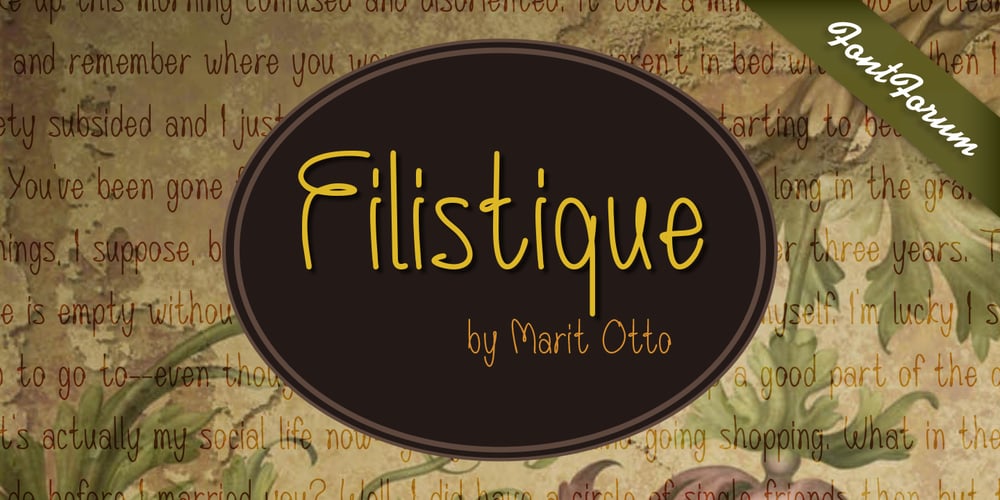
Filistique
Filistique font
Filistique Font Family was designed by Marit Angenita Otto and published by URW Type Foundry. Filistique contains 1 styles and family package options. Filistique is gracious, flexible, and stylish. In the first sketches of this typeface, the one-line drawing principle was the rule. This principal had to perish soon when more complex characters came up. But still the one-line rule was kept in tradition to maintain the behavior of the natural course of the drawing line. Once writing, the characters joined fluidly into words and slipped easily into sentences like they had always belonged there. They have these natural features maybe somewhat familiar on the first sight. Filistique approaches handwriting but likes to be straight up as well. Please, no Christmas card writing with this character! She is best in shape for finger licking good menus of classy restaurants, lyrics on an album cover of a renowned and utterly cool artist, for a letter to your precious loved one and of course for making a hell of an impression anyway!